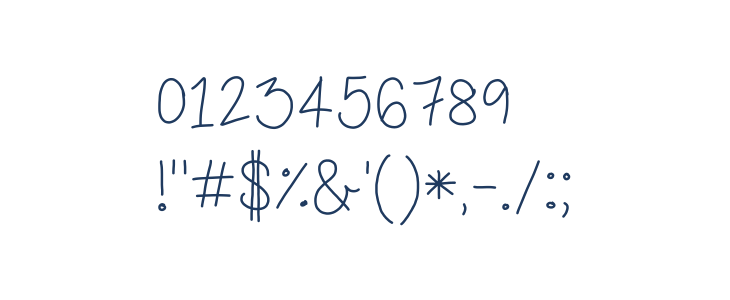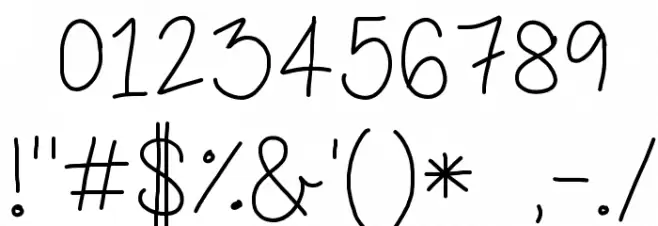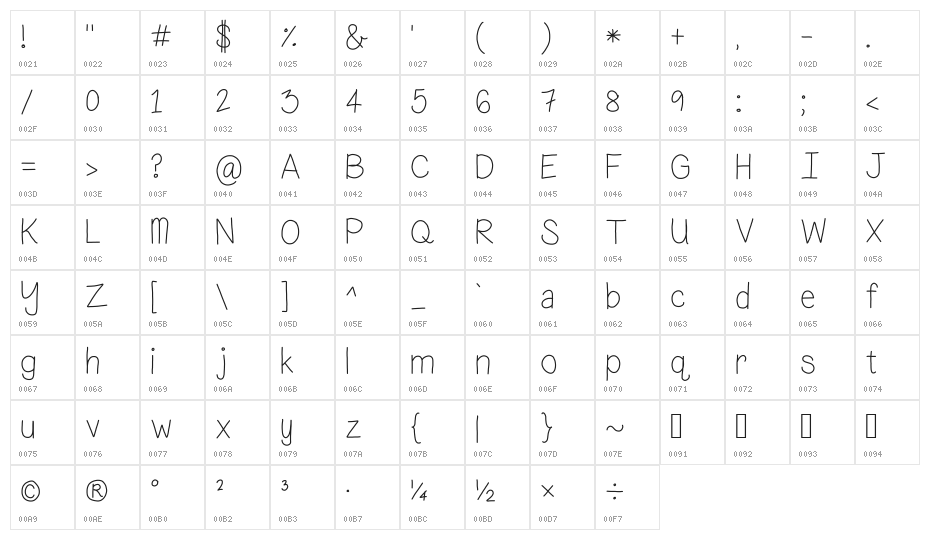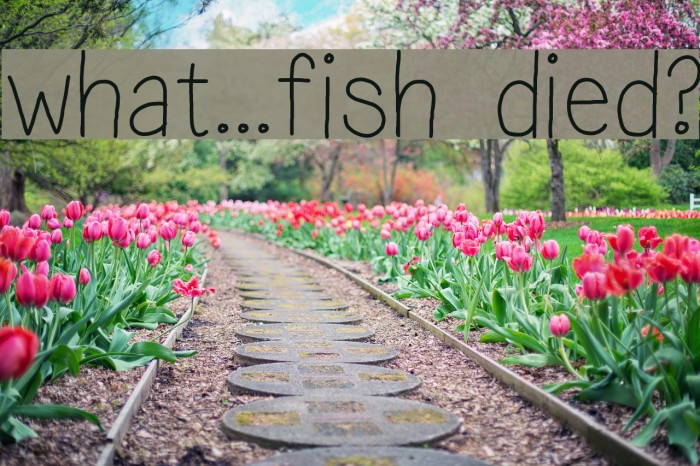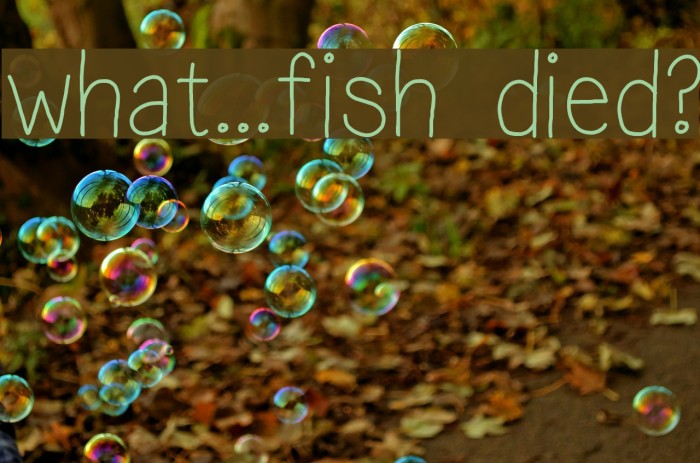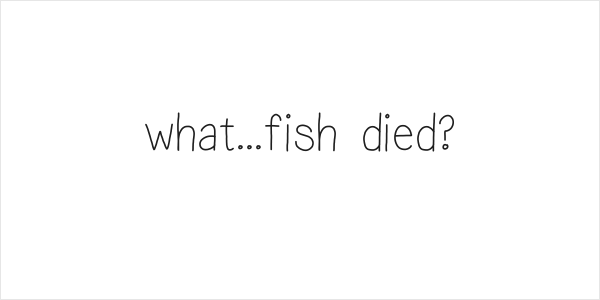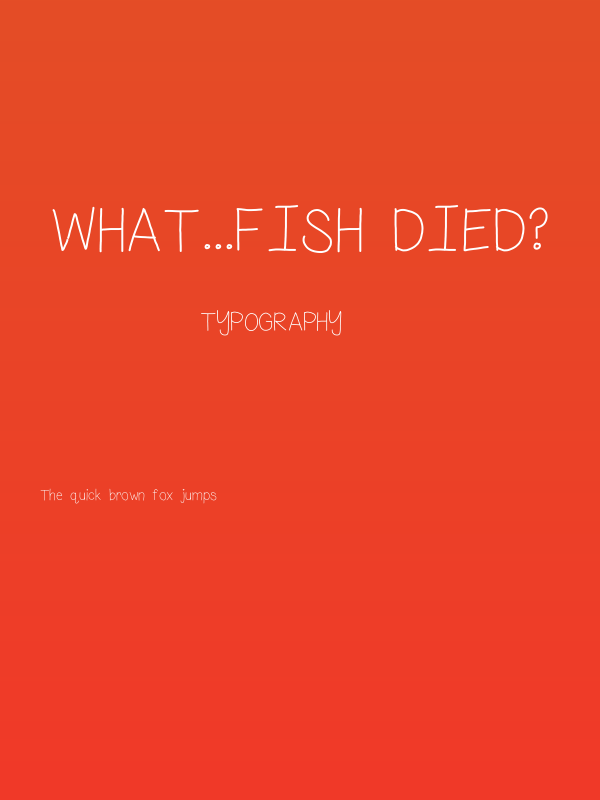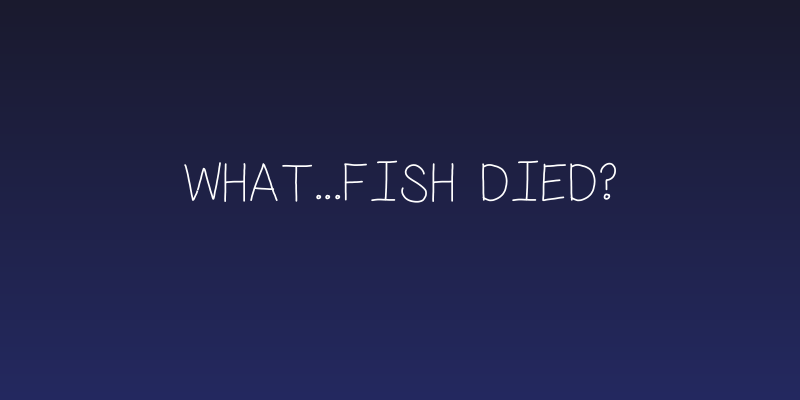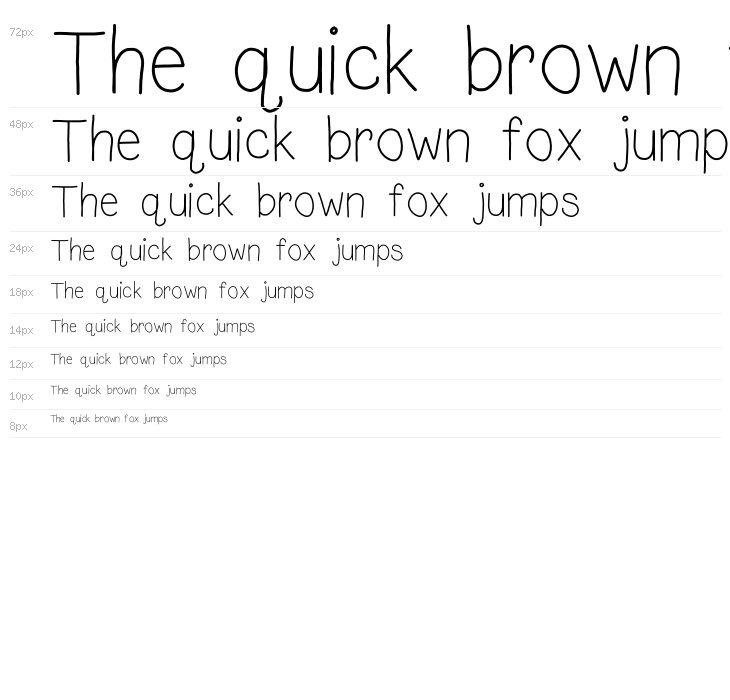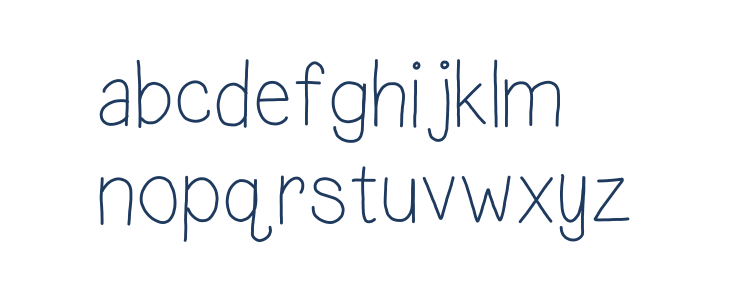
what...fish died? Font
what...fish died? Description
This font features a playful, handwritten style with a casual and informal appearance. The letters are slightly irregular, giving it a whimsical and approachable feel. The strokes are consistent in width, providing a uniform look across all characters. The uppercase and lowercase letters maintain a cohesive style, with rounded edges and a slight tilt that adds to the font's charm. The numerals and special characters are designed to match the overall aesthetic, ensuring versatility in various applications. This font is ideal for projects that require a friendly and inviting touch.
| Proposed Projects | Ideal for children's books, greeting cards, casual invitations, and playful branding. |